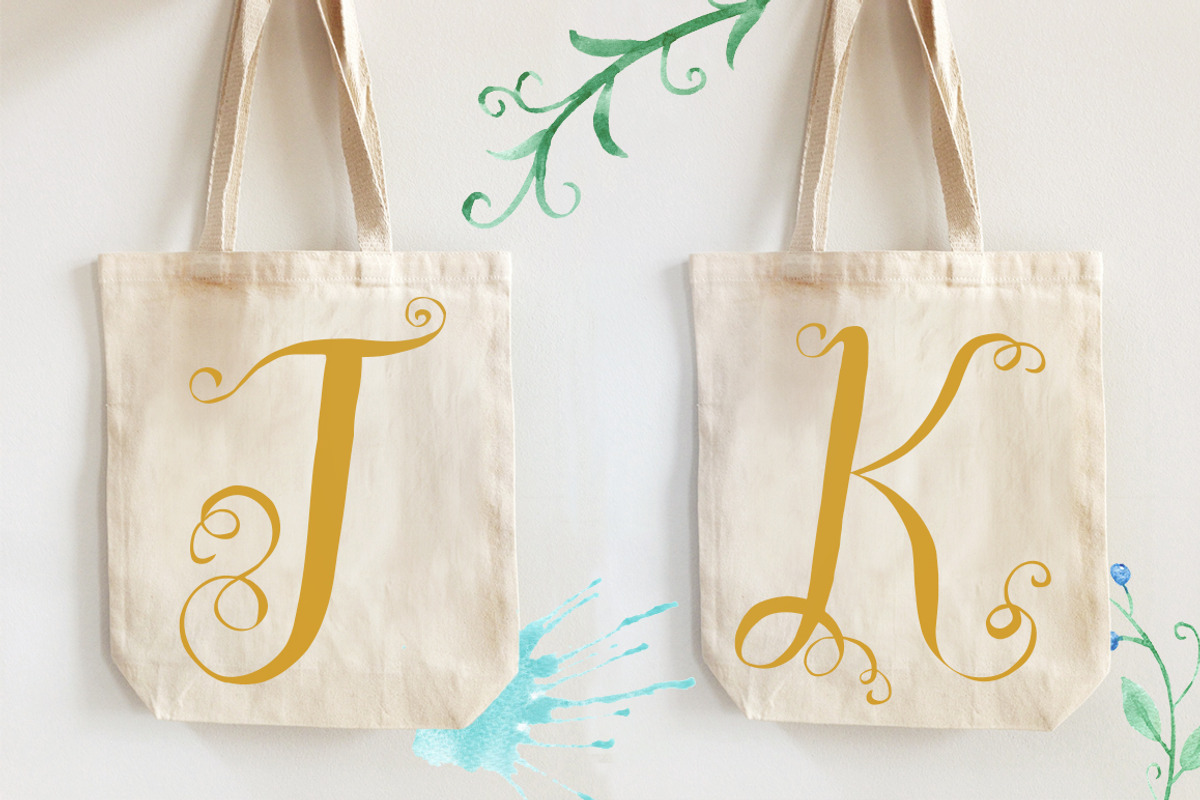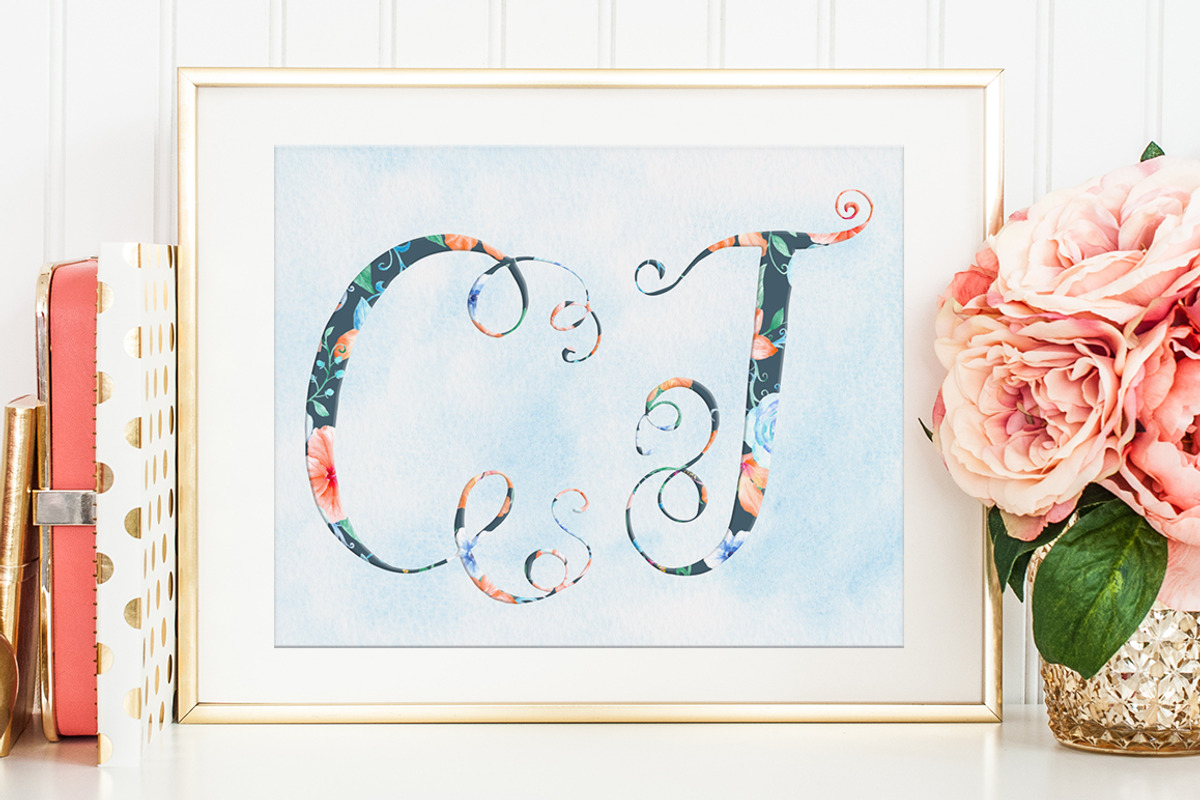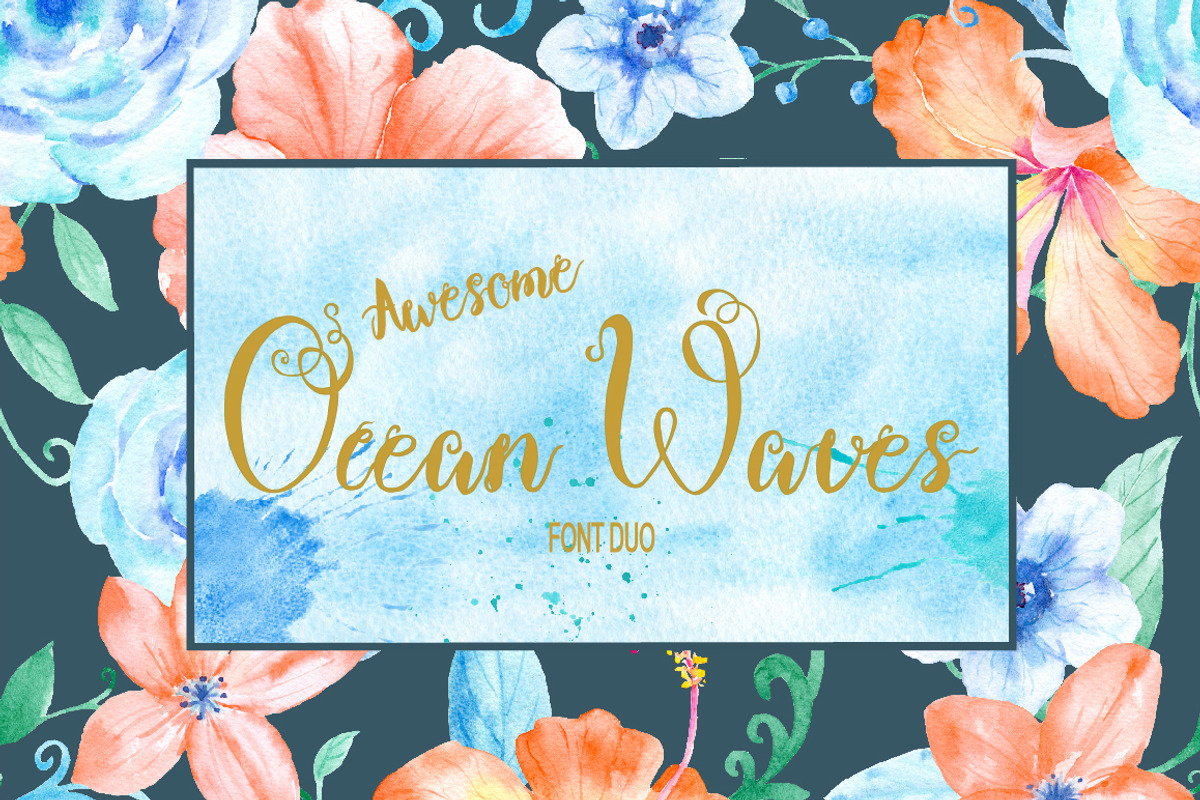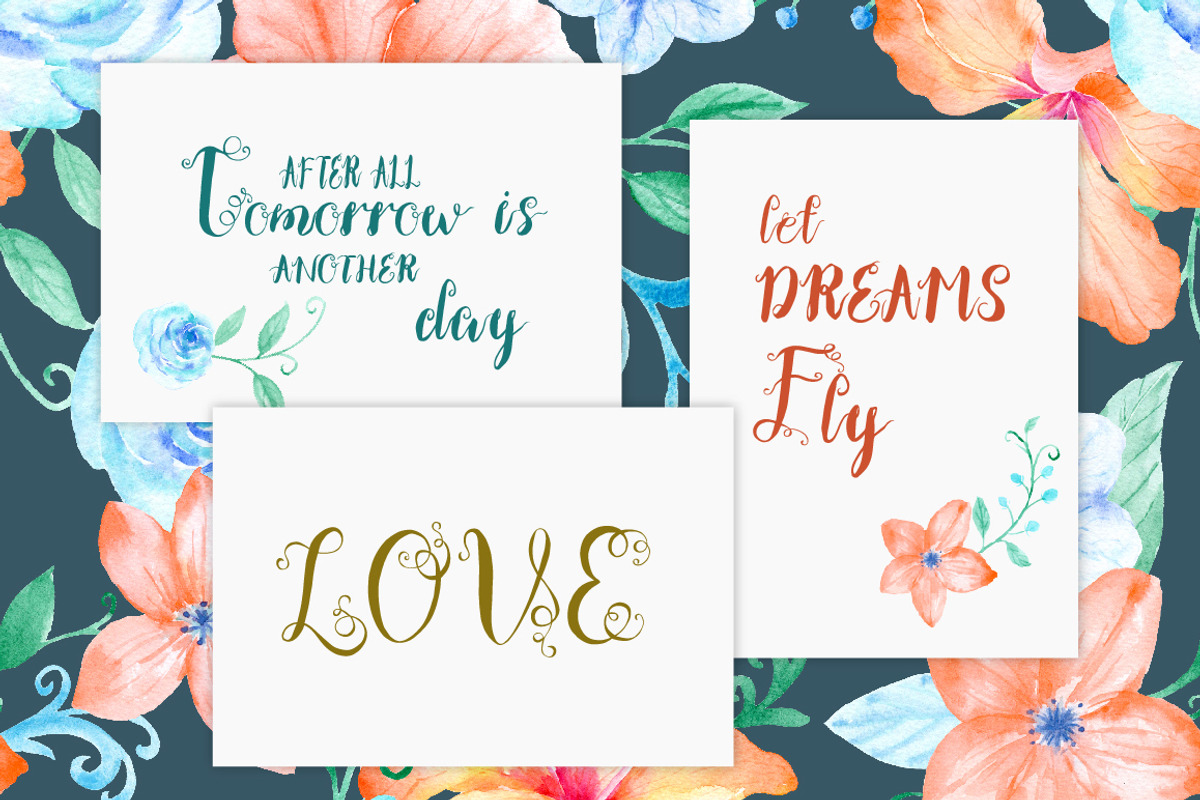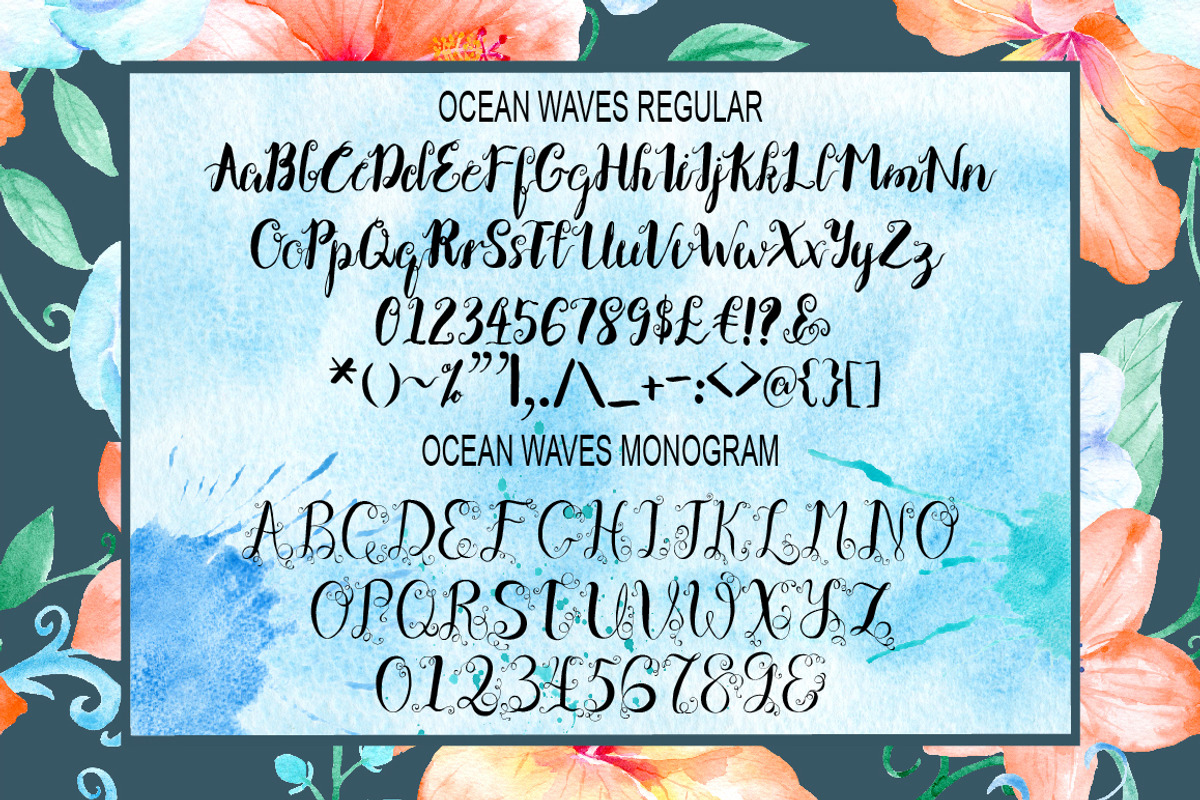
Brush Font Duo Ocean Waves
Brush Font Duo Ocean Waves by Corner Croft is a font selected for branding, posters, packaging, typography.
- Ocean Waves Regular includes upper and lower case alphabets, numbers and punctuations marks.
- Ocean Waves Monogram includes upper case alphabet and numbers.
Why Brush Font Duo Ocean Waves is worth a look
Brush Font Duo Ocean Waves by Corner Croft fits naturally into Branding, posters, packaging, typography.